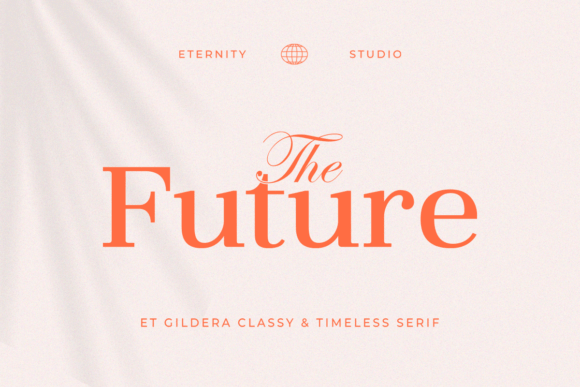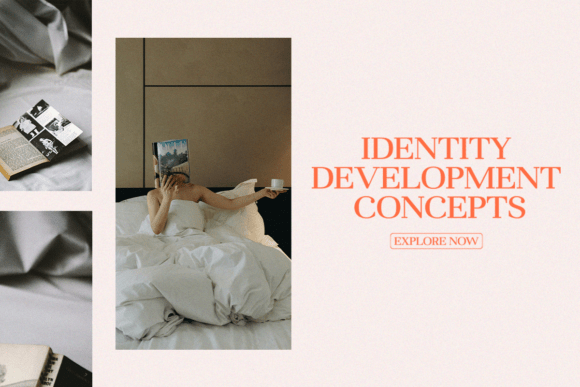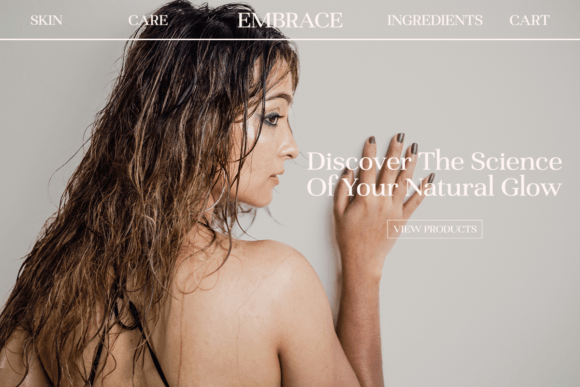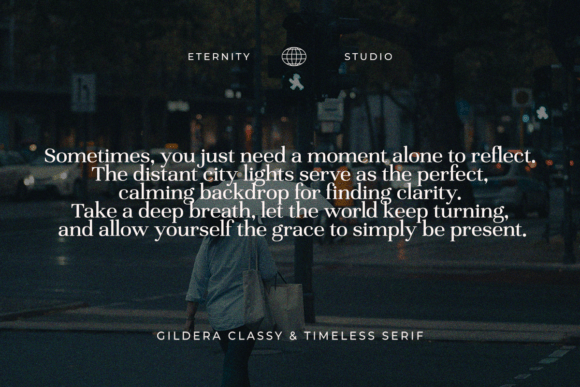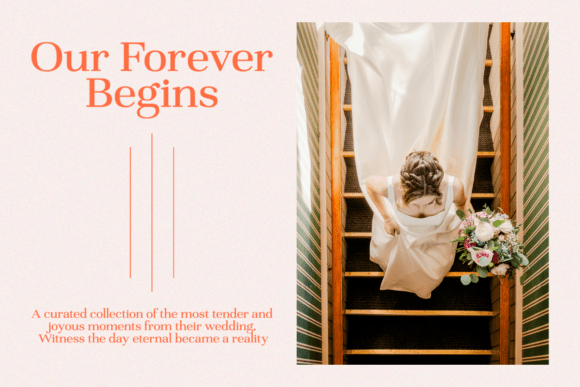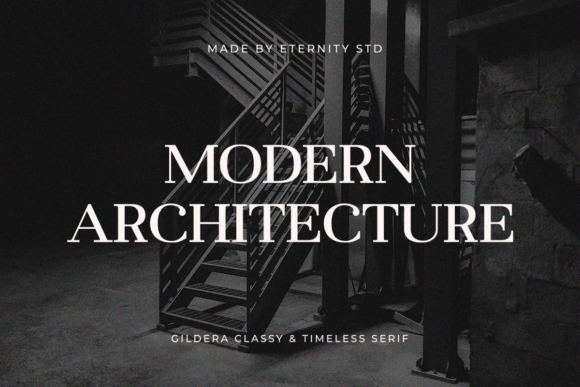
Introduction to Gildera Font
Gildera is a powerfully visual serif typeface designed for maximum impact and enduring style.
It boldly stands against the sleek uniformity of many modern trends, offering designers a sophisticated alternative with a striking vintage flair Gildera doesnโ€™t whisper; it uses bold, organic curves to deliver a confident statement that is both undeniably sophisticated and strikingly vintage.